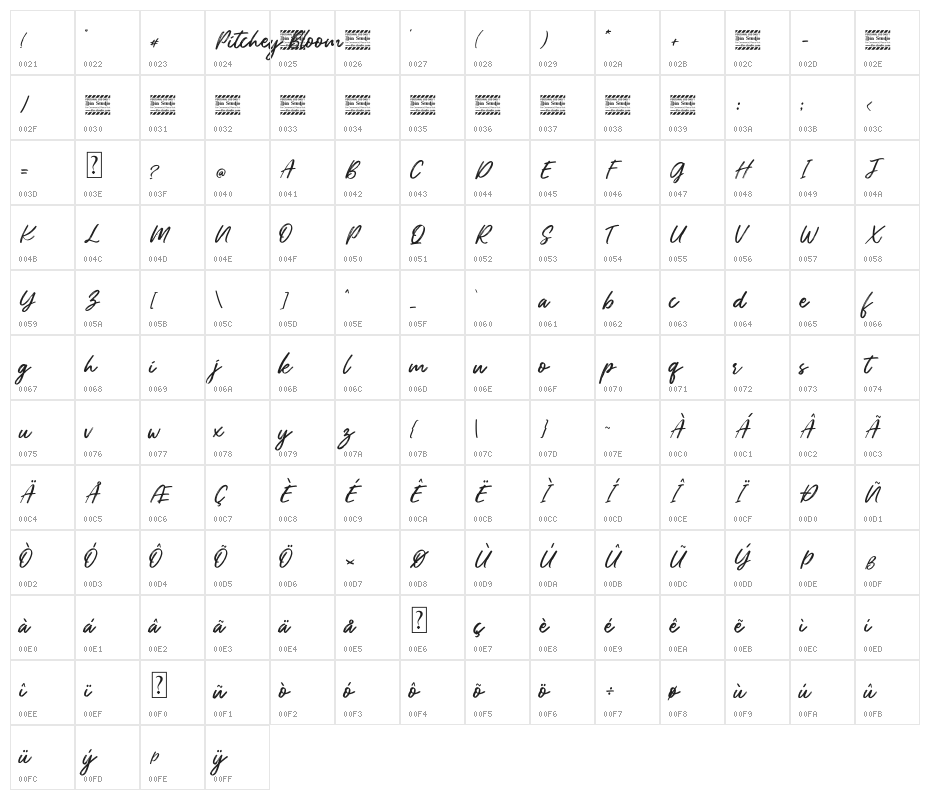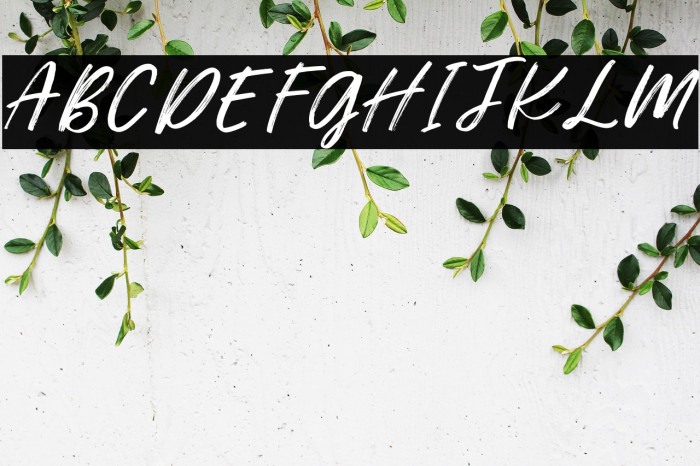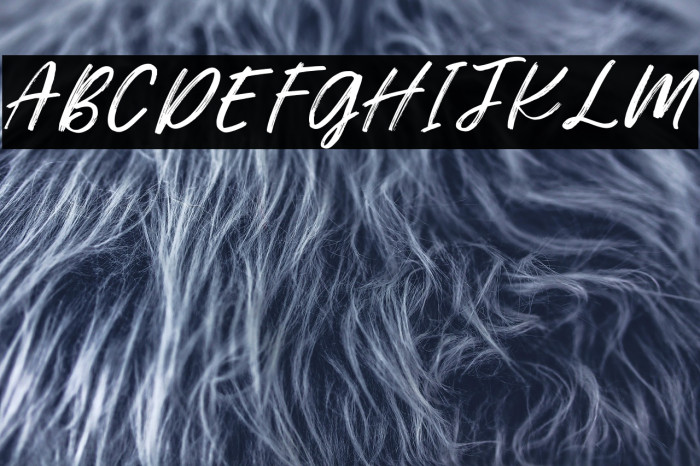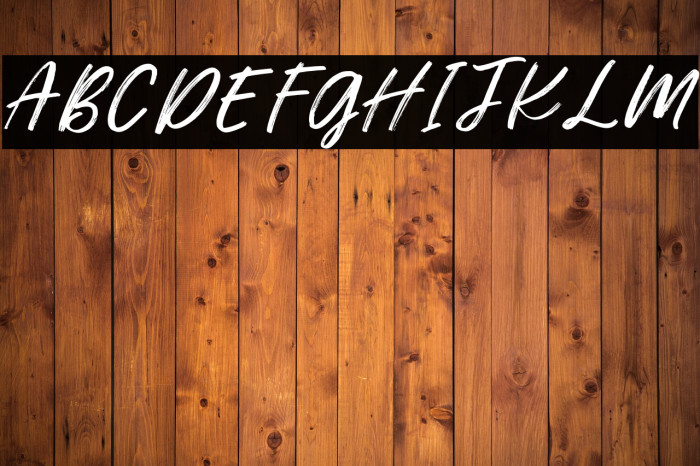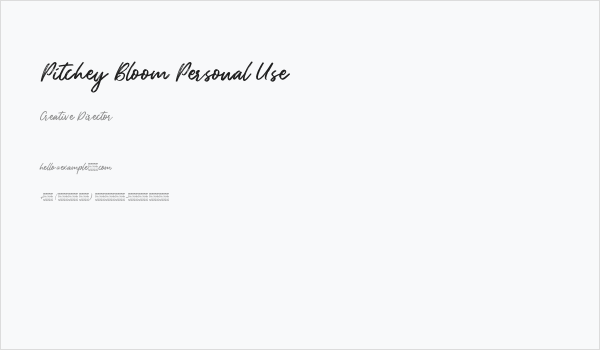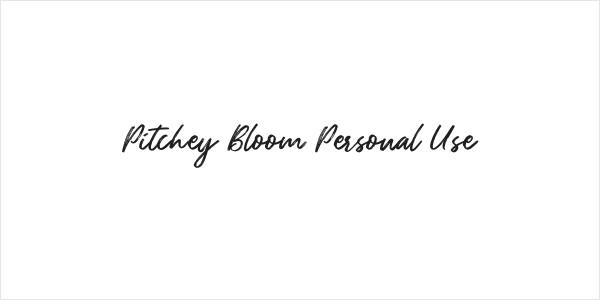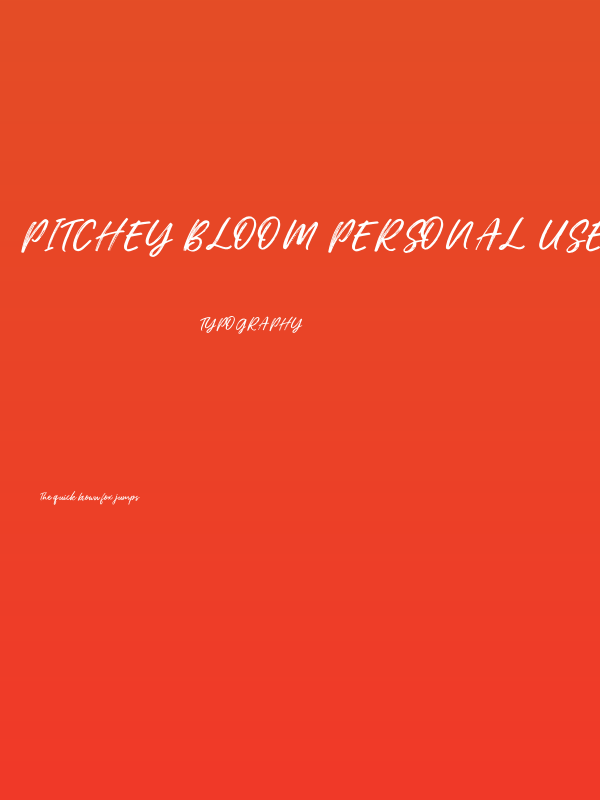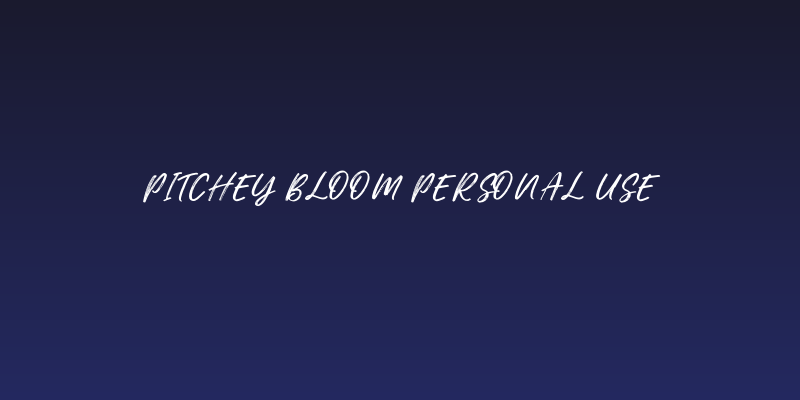
Pitchey Bloom Personal Use Font
Pitchey Bloom Personal Use Description
This font features a dynamic and expressive handwritten style, characterized by its fluid strokes and natural flow. The letters are crafted with a brush-like texture, giving them a lively and artistic appearance. The uppercase and lowercase letters maintain a consistent style, with a slight slant that adds to the casual and informal feel. The numerals and special characters are designed to match the overall aesthetic, ensuring a cohesive look across all text elements. This font is perfect for projects that require a personal touch, such as invitations, greeting cards, and creative branding.
Use CaseLogos, Headlines, Creative projects
Proposed ProjectsIdeal for invitations, greeting cards, creative branding, and personal projects.